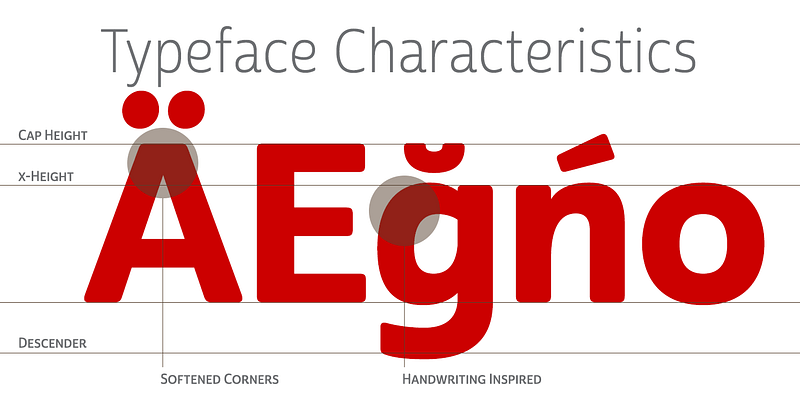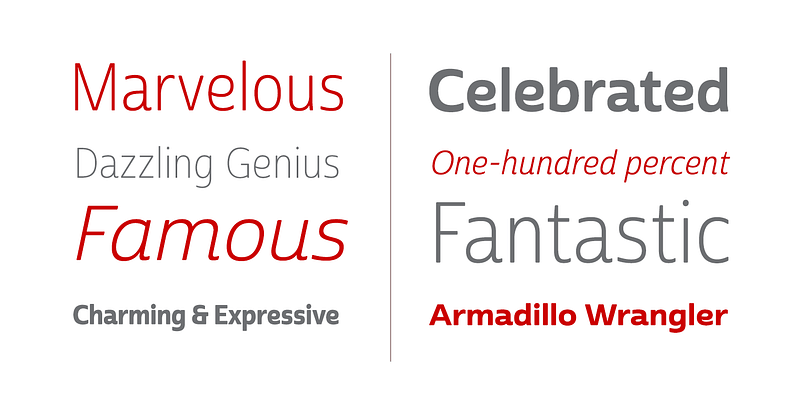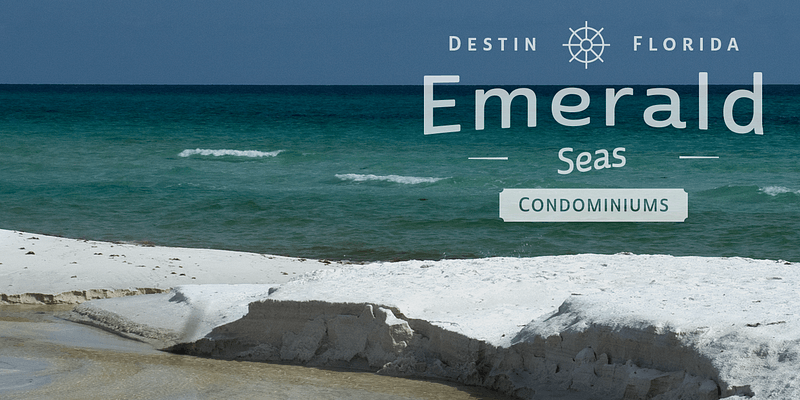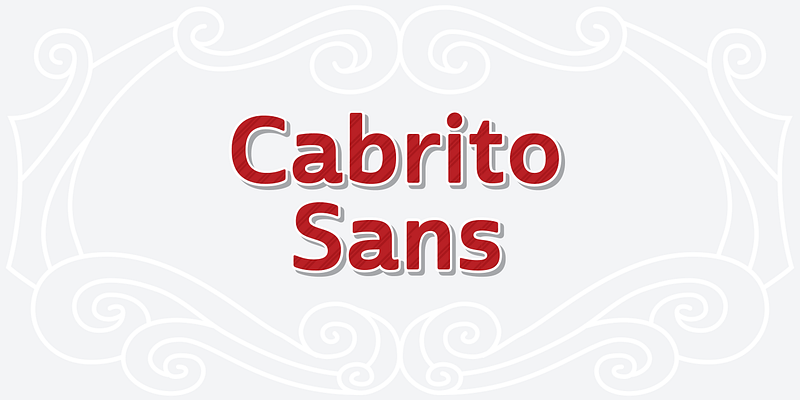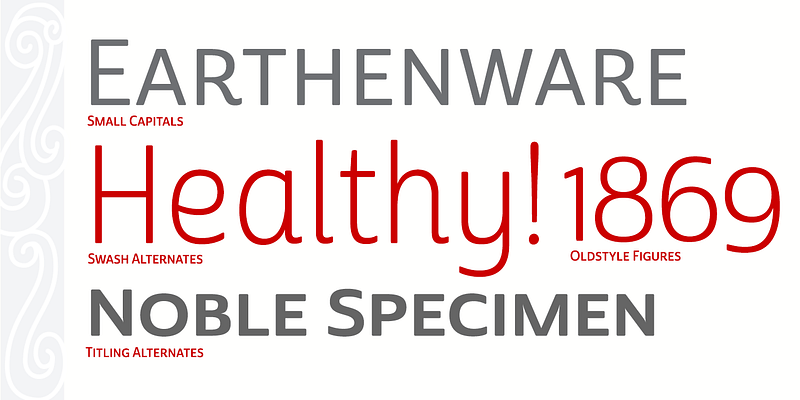
Strip away the serifs of Cabrito, and you have a laid back, rounded sans serif alternative. This handwriting-inspired creation is definitely not uptight about its forms.